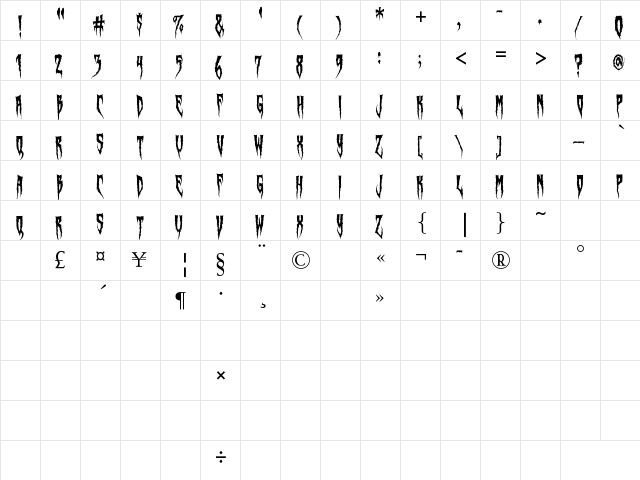
Swamp Witch Regular
| Foundry | Sinister Visions inc. / SinisterFonts.com |
| Designer | Chad Savage |
Design Context for Swamp Witch Typeface
Swamp Witch is a composed and adaptable typeface that performs quietly and consistently across a wide range of design contexts.